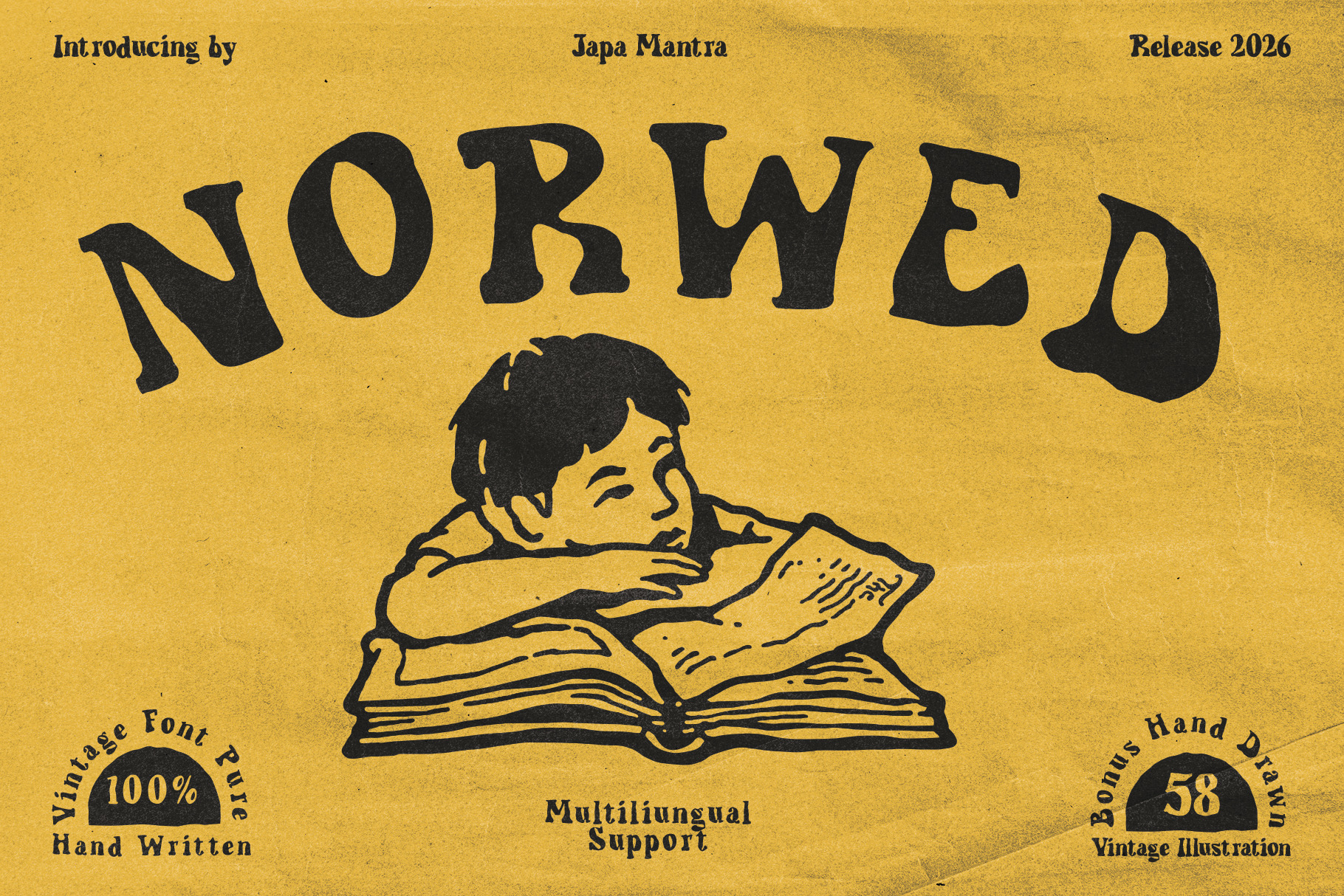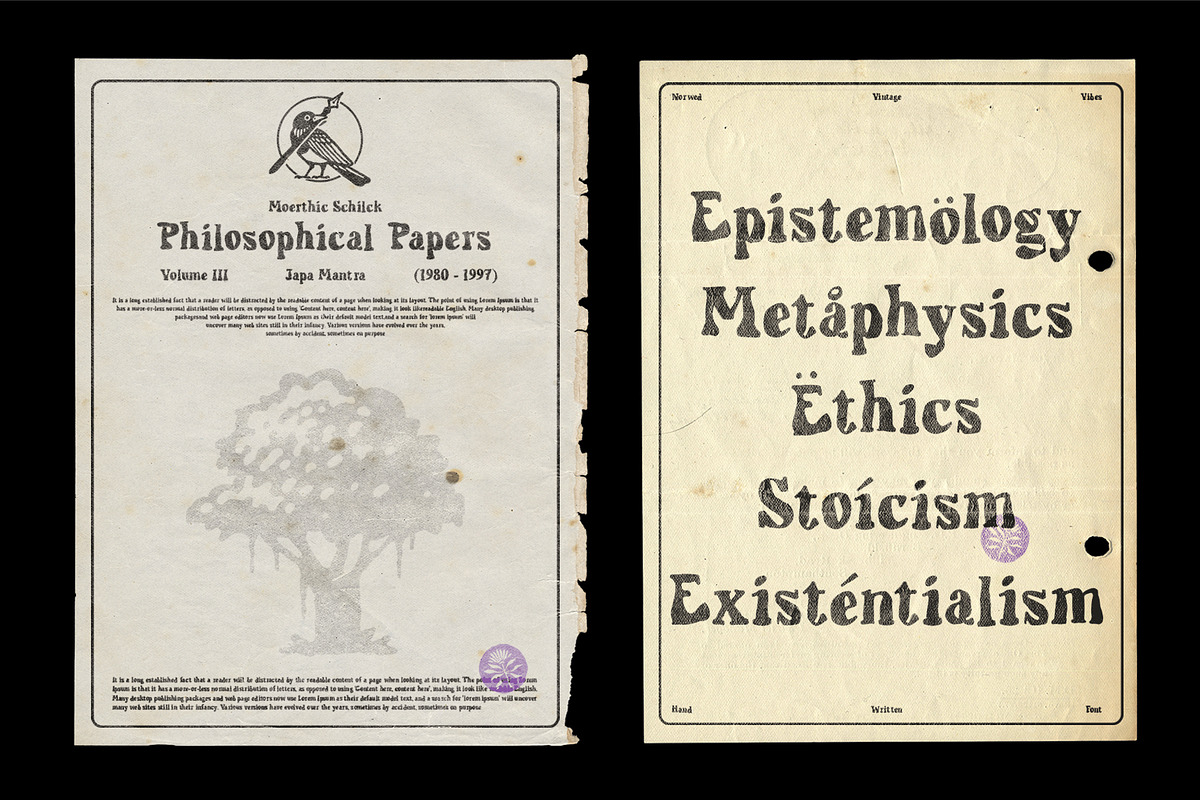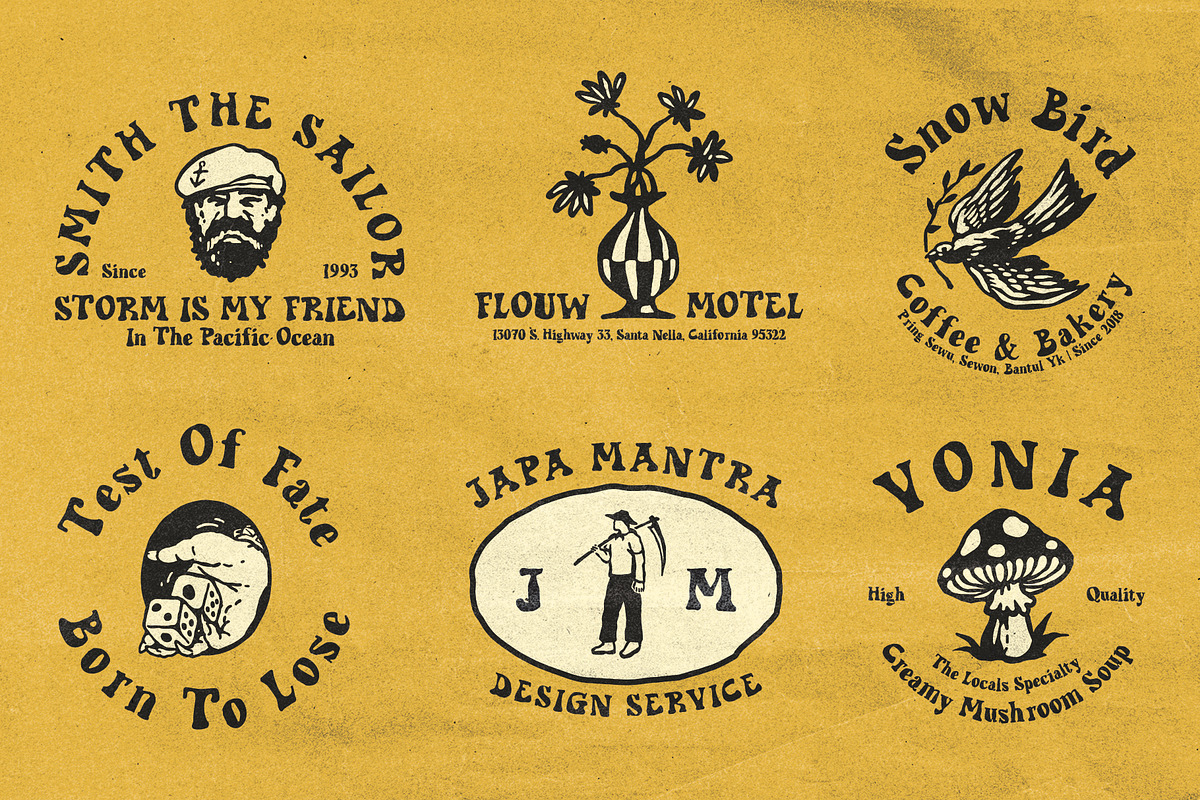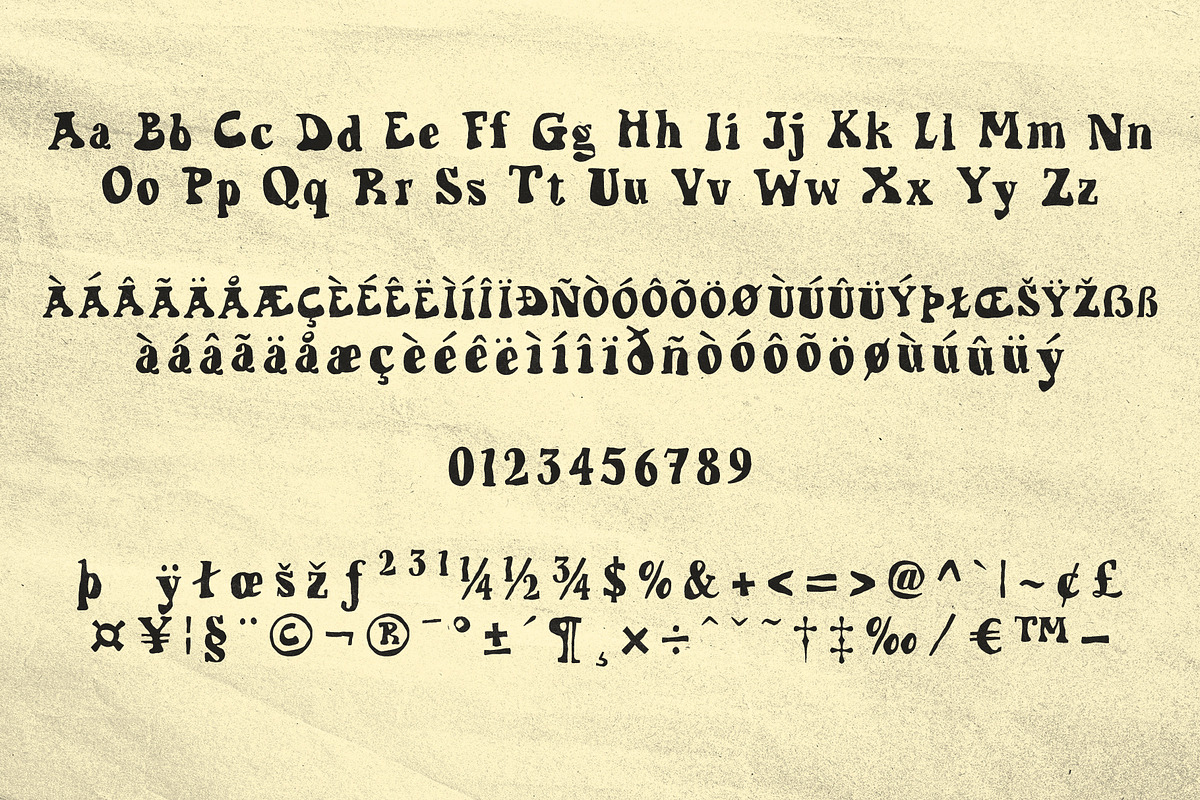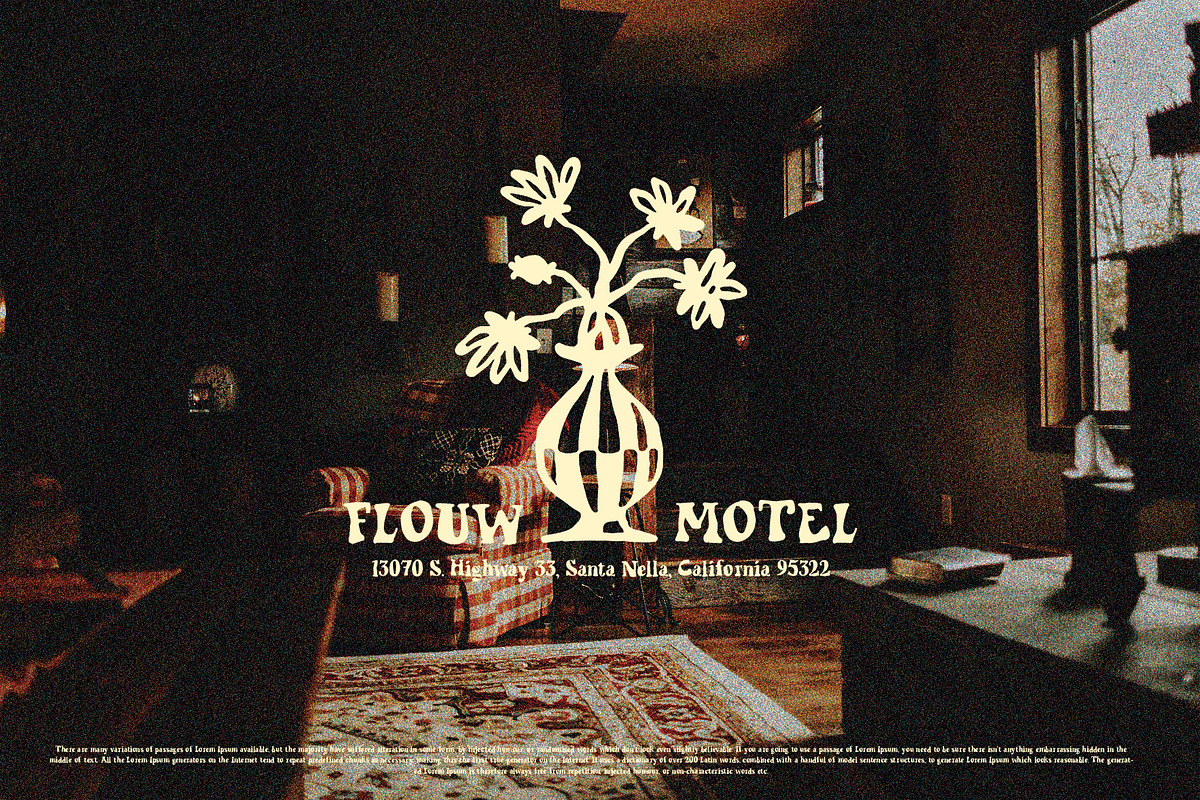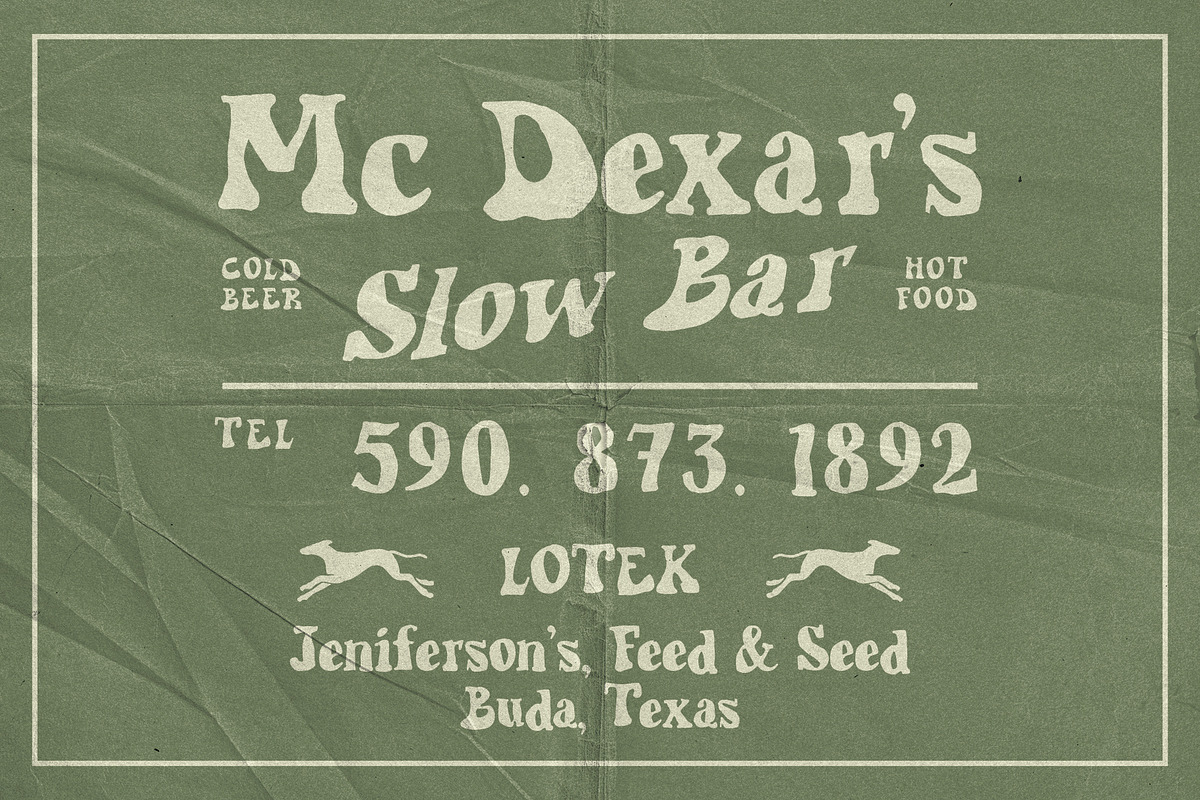
Norwed Font
Norwed is a bold, hand-drawn vintage display font inspired by classic 1960s–70s poster lettering. Its chunky, irregular letterforms feature playful curves, uneven proportions, and a naturally imperfect hand-lettered character that gives every word an authentic retro feel.
Designed to stand out, Norwed works beautifully for vintage posters, editorial headlines, apparel graphics, packaging, logos, album artwork, and nostalgic branding. Its expressive personality pairs especially well with retro illustrations, distressed textures, and screen-printed aesthetics.